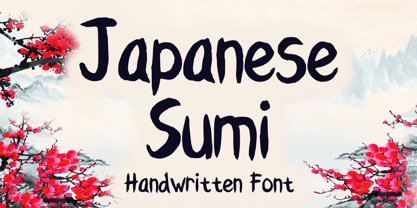
Japanese Sumi
Die Schriftfamilie Japanese Sumi wurde von Gabriel Valentinus entworfen und von Mvmet veröffentlicht. Japanese Sumi enthält 1 Stile.
Japanese Sumi is a beautiful japanese, asian handwritten display brush font. You can use it for anything ranging from t-shirts, book designs, and greeting cards to stickers and posters, packaging designs, or anything that needs a casual touch, it will be your perfect font to pick. Fall in love with its incredibly versatile style, and use it to create lovely designs!